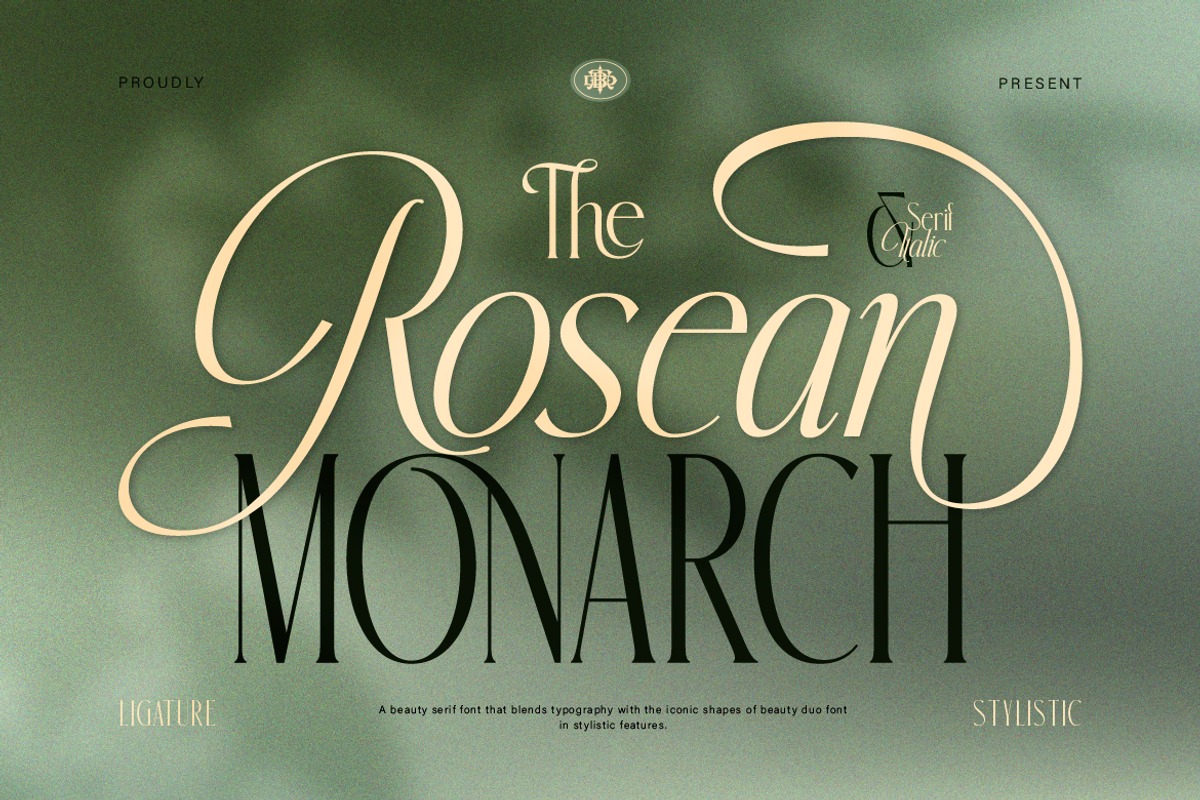
Rosean Monarch – Elegant Serif Font
Rosean Monarch – Elegant Serif Font is a professionally designed typeface that delivers clarity, structure, and consistent performance across various design applications. Rosean Monarch is an elegant serif duo typeface that pairs a clean, modern serif with a flowing italic companion style. Designed for brands that want to feel timeless yet contemporary, this font blends classic serif structure with graceful, romantic curves — perfect for adding a touch of sophistication to any project.
Rosean Monarch brings a refined, editorial-meets-romantic aesthetic to your designs — ideal for creators, small business owners, and designers looking for a versatile serif font with a distinctive elegant touch.
Features:
A – Z set (Uppercase & Lowercase)
Number
Punctuation
Alternates
Ligatures
Multilingual